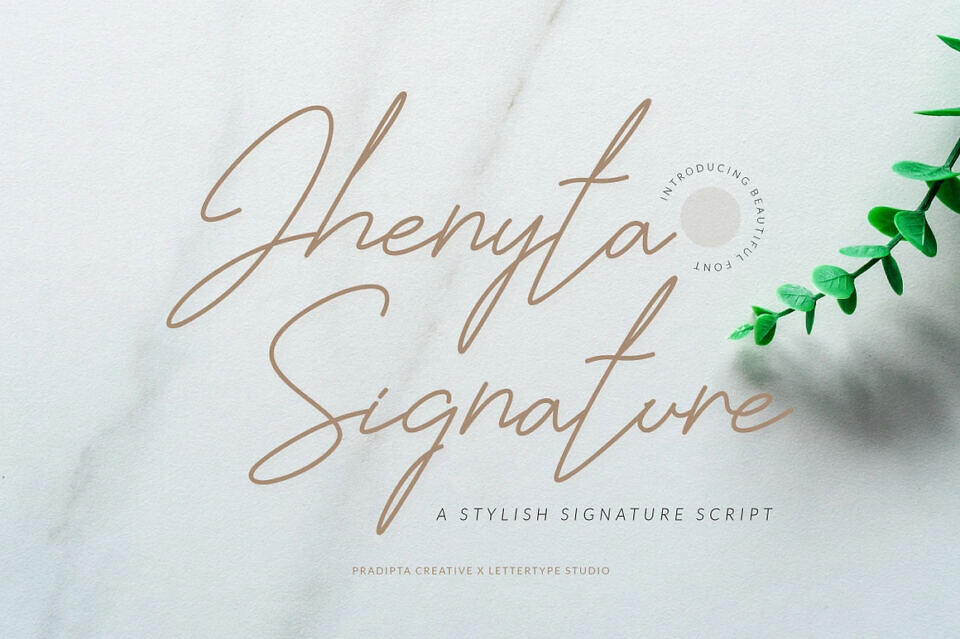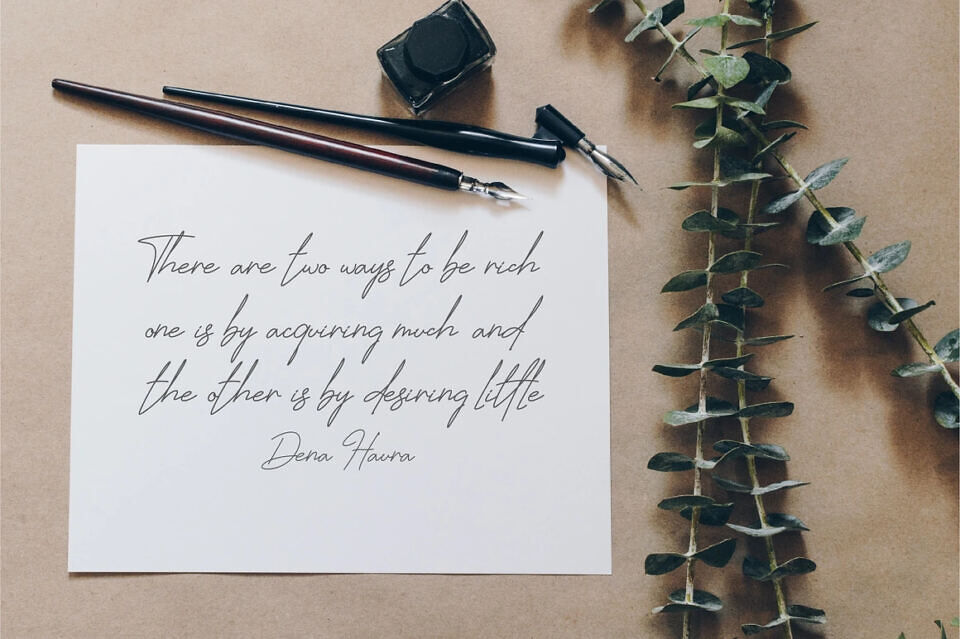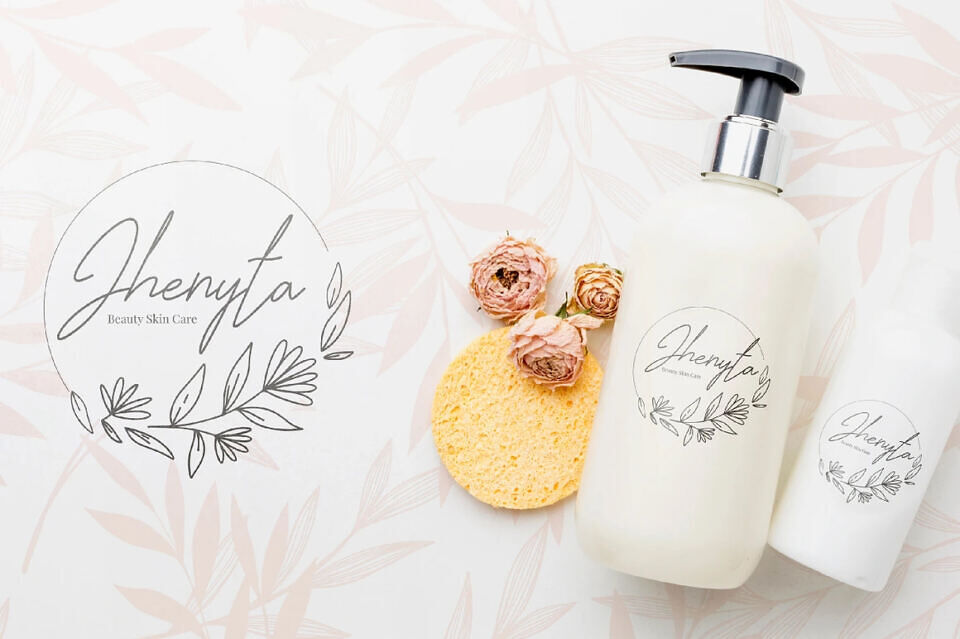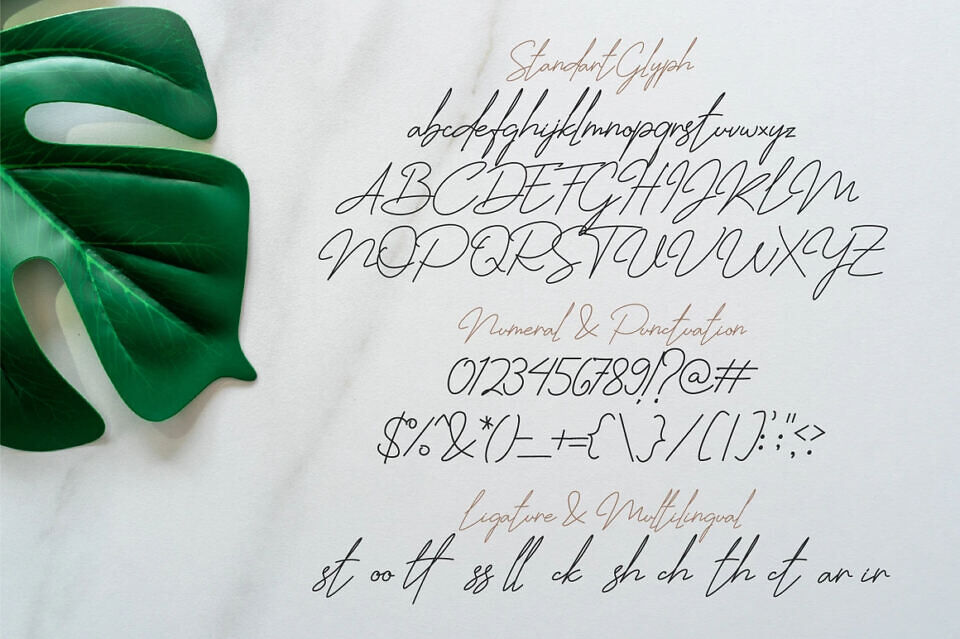
Jhenyta Signature Font
Jhenyta Signature Script consisting of a fashionable sophisticated signature-style script with its own unique curves and an elegant inky flow.
Jhenyta Signature Script is perfect for photography, watermark, social media posts, advertisements, logos & branding, invitation, product designs, label, stationery, wedding designs, product packaging, special events or anything that need handwriting taste.